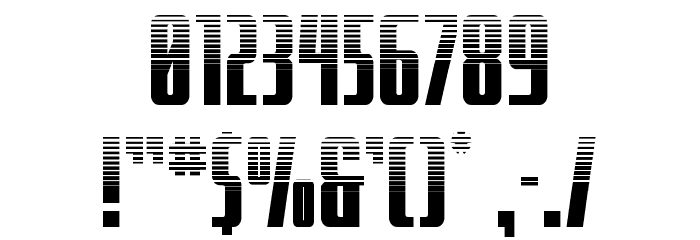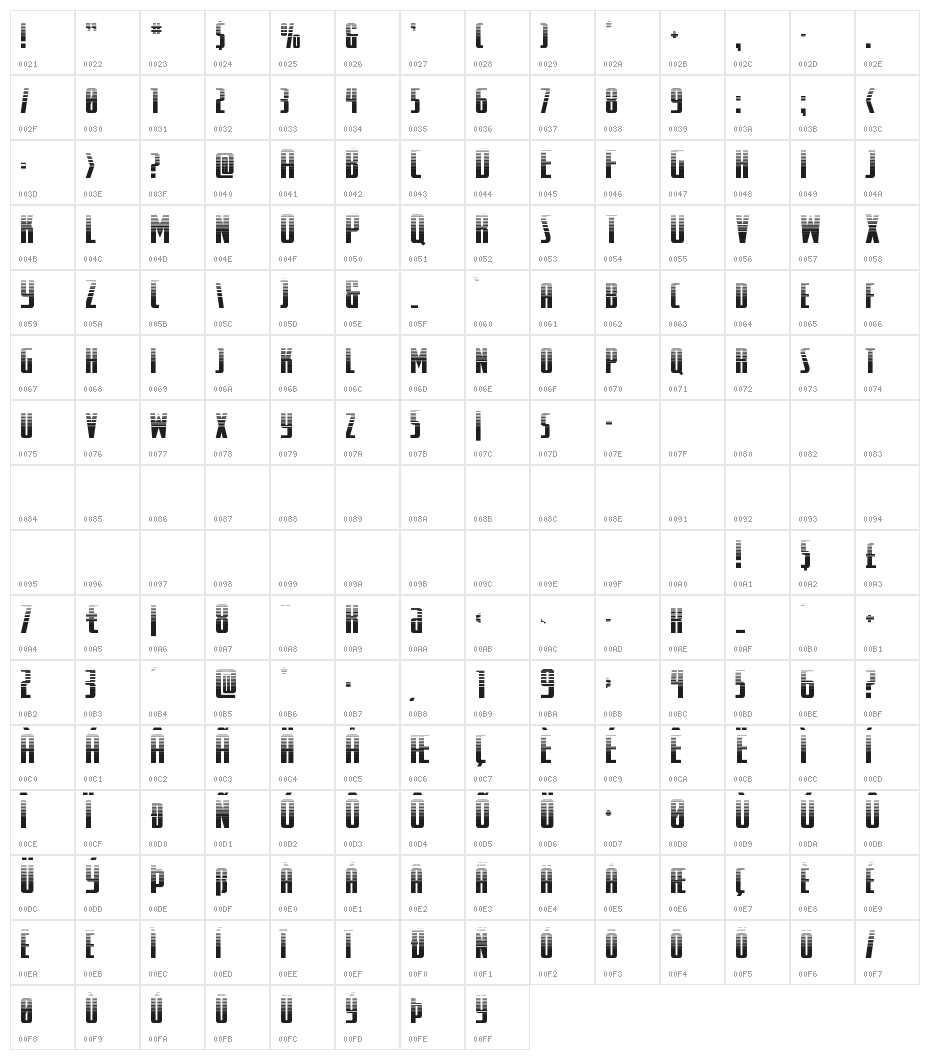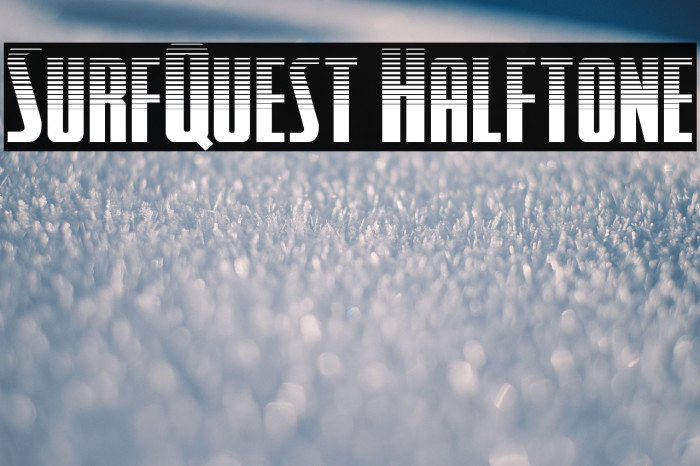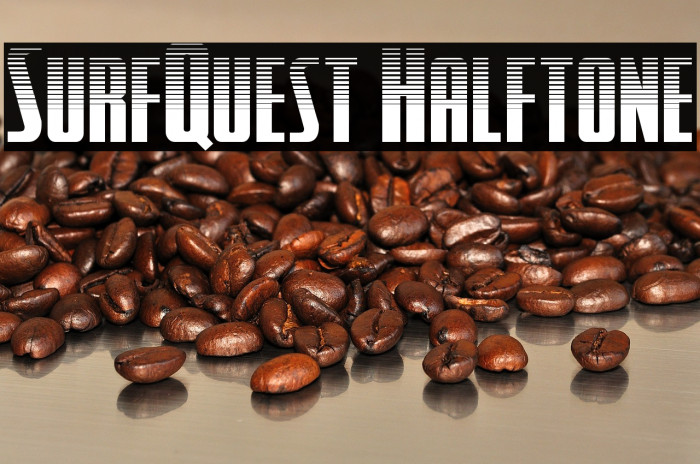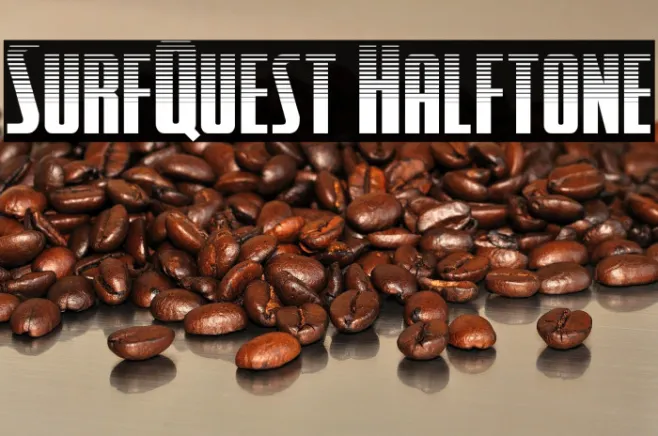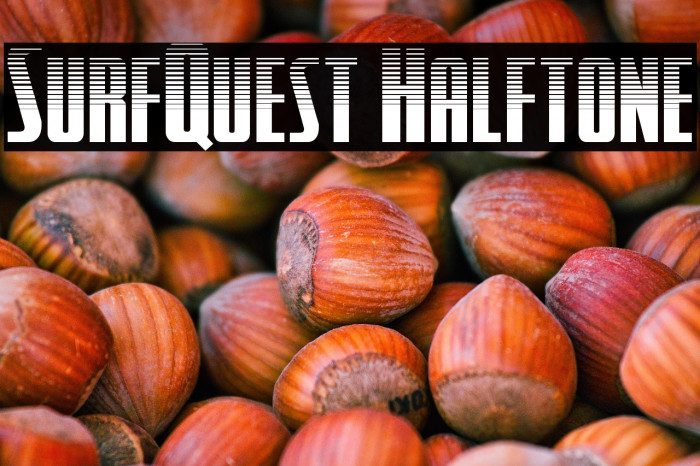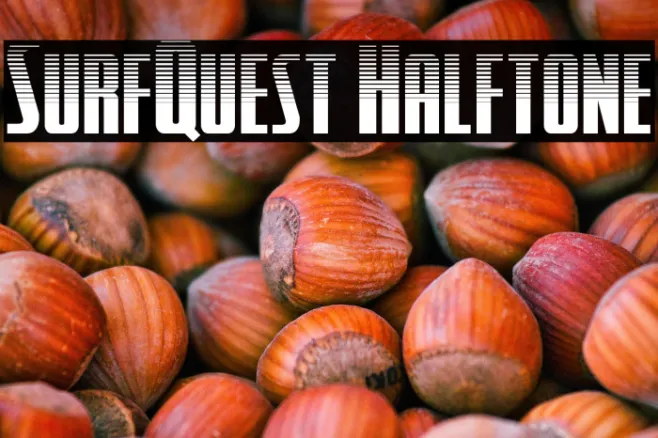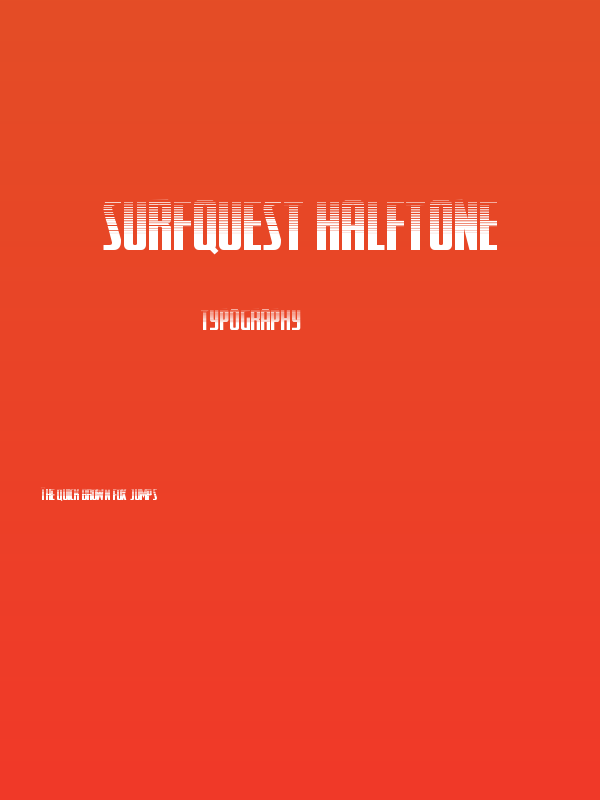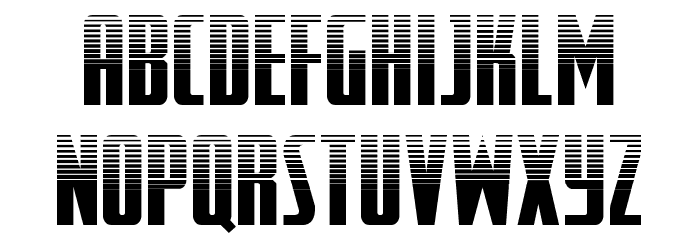
SurfQuest Halftone Font
SurfQuest Halftone Description
This font features a bold, dynamic design with a halftone effect that creates a sense of movement and energy. The uppercase letters are particularly striking, with a gradient-like pattern that transitions from solid black at the bottom to a lighter, striped appearance at the top. This gives the font a unique, modern look that is both eye-catching and versatile. The numerals and special characters maintain this stylistic approach, ensuring consistency across all glyphs. The overall design is reminiscent of retro-futuristic aesthetics, making it ideal for projects that require a bold statement.
| Overall Style | Modern, Retro-Futuristic |
| Proposed Projects | Ideal for posters, album covers, branding, and any project needing a bold, modern touch. |